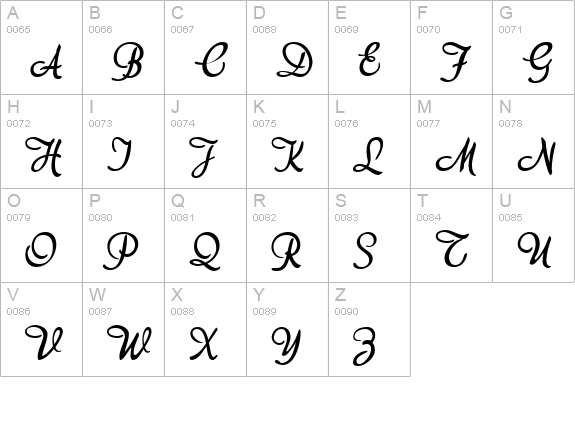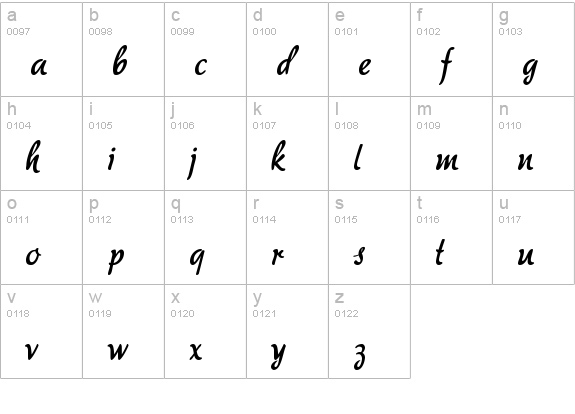
akaDora is a stunning and elegant font that captures the essence of sophistication and grace. Its unique and delicate letterforms are meticulously designed to create a sense of timeless beauty. This font exudes a sense of femininity and charm, making it perfect for a wide range of projects, from wedding invitations and greeting cards to branding and advertising materials. What sets akaDora apart is not only its exquisite design, but also the fact that it is available for free. Yes, you read that right. This stunning font can be yours without spending a dime. Whether you are a professional designer or simply someone who loves typography, akaDora is a must-have addition to your font collection. To get your hands on akaDora, simply head over to FontsMarket.com, a trusted and reliable source for high-quality fonts. There, you will find a wide range of fonts to suit your every need, including akaDora. Downloading this font is as easy as a few clicks, and you can start using it right away to elevate your designs to new heights. With its graceful curves and intricate details, akaDora is sure to make a lasting impression on anyone who encounters it. From elegant wedding invitations to sophisticated branding materials, this font has the power to transform any project into a work of art. So why wait? Start exploring the endless possibilities that akaDora offers and let your creativity soar. Download this remarkable font for free at FontsMarket.com and unlock a world of design possibilities.